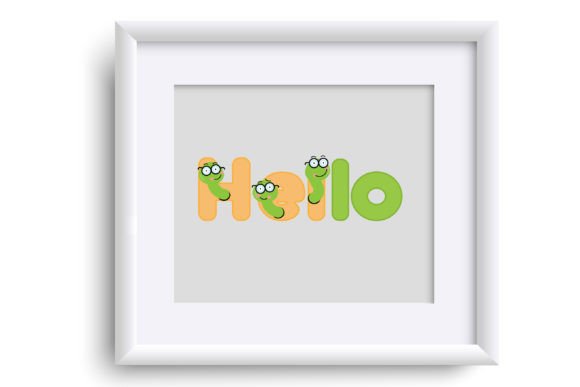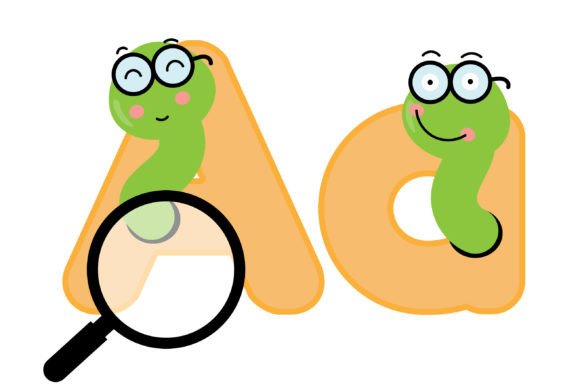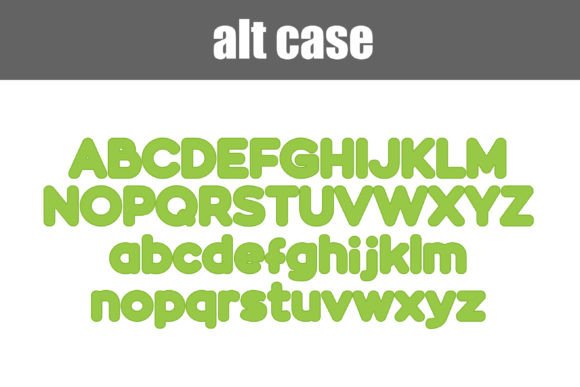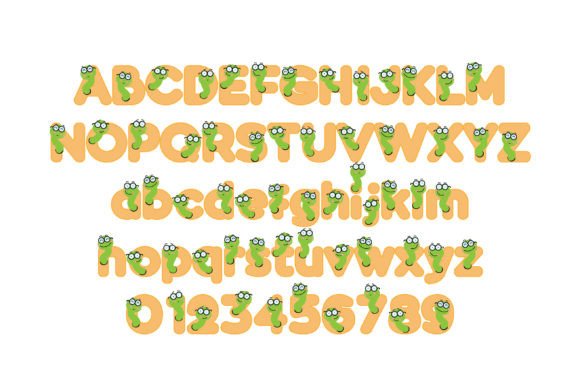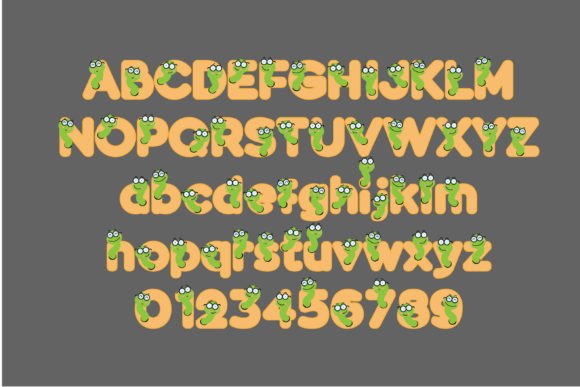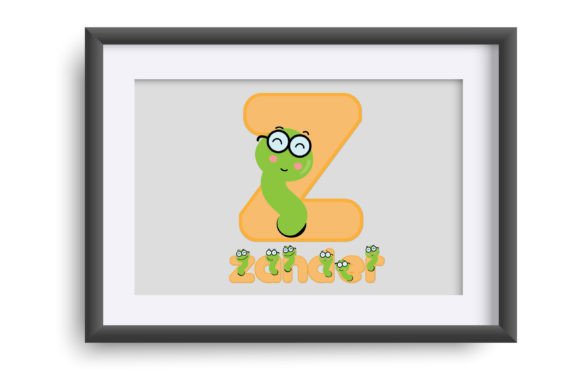
Unleashing the Magic of Color in Design
There’s something special about stepping into a world of vibrant colors and playful typography. For designers, the quest for the perfect font is a never-ending journey. It’s that moment when a new font catches your eye, and you can envision it bringing your design to life – that’s what makes it all worth it.
Enter Bookworm Primary Font, a delightful full-color font that combines a chunky sans serif with adorable bookworms throughout. This charming font is perfect for adding a touch of whimsy to titles, displays, posters, and more. With its alt case offering additional colors accessible through your system’s character map, the creative possibilities are endless. As a valuable addition to any designer’s toolkit, Bookworm Primary Font is sure to bring a smile to your face and a pop of color to your designs.
Key Features of Bookworm Primary Font
- Unique Characteristics: The font features a unique, child-friendly design with rounded edges and a friendly tone, making it ideal for children’s books, educational materials, and other publications that require a gentle and approachable tone.
- Scalability: The font is highly scalable, allowing it to be used effectively in a variety of contexts, from small text labels to large headings and titles.
Bookworm Primary Font Review
As a designer, I was excited to dive into the Bookworm Primary Font, and here’s my honest review.
What works well: ✨ This font has a charming, old-school feel that immediately caught my attention. It’s perfect for book lovers, academic projects, or any design that requires a vintage touch. The font is well-balanced, with clear distinctions between the uppercase and lowercase letters. The ligatures are also well-designed, adding to the font’s overall charm.
The font also includes a wide range of weights, from Light to Bold, making it versatile for various design applications.
However, I did encounter some limitations: ⚠️ The font’s design can feel a bit inconsistent in certain weights, which may require some adjustments to achieve the desired look. Additionally, the font’s x-height is slightly larger than average, which may not be ideal for very small text sizes.
Overall, I think Bookworm Primary Font is a great addition to any designer’s toolkit. While it may have some limitations, its unique charm and versatility make it a worthwhile choice for projects that require a vintage or academic feel.
- Perfect for book lovers and academic projects
- Well-balanced design with clear distinctions between uppercase and lowercase letters
- Wide range of weights (Light to Bold)
- Unique charm and vintage feel
Tips for Getting the Most Out of Bookworm Primary Font
Bookworm Primary Font is a versatile font suitable for various designs, from children’s books to educational materials. To get the most out of it, use it for headings, titles, and body text in a clear and concise manner.
Bookworm Primary Font is ideal for:
- Children’s book titles and headings
- Education and learning materials
- Graphic novels and comics
- Typography projects and designs